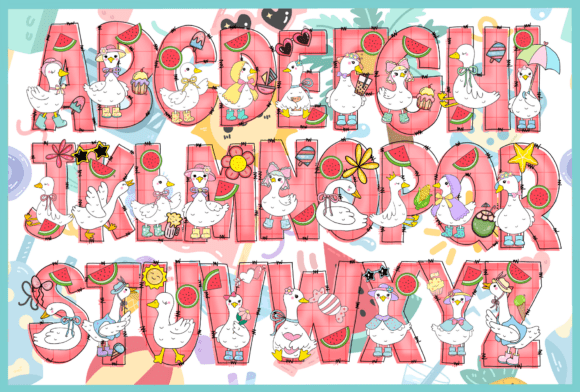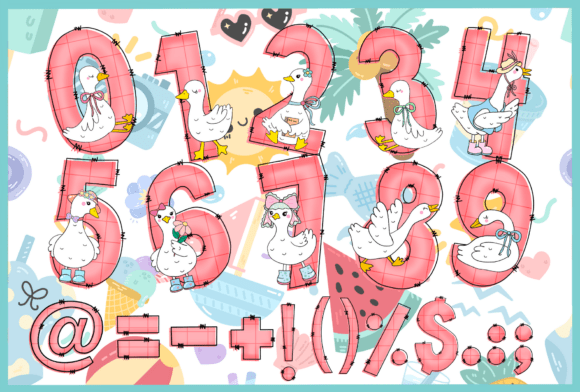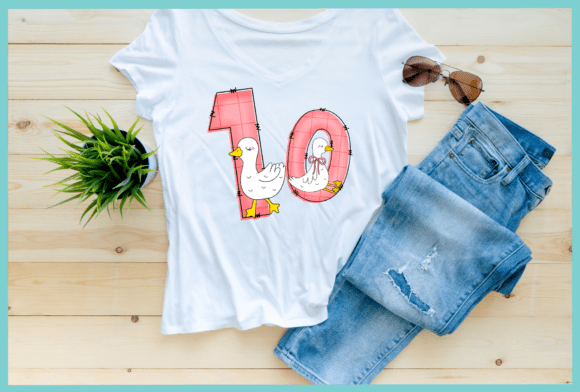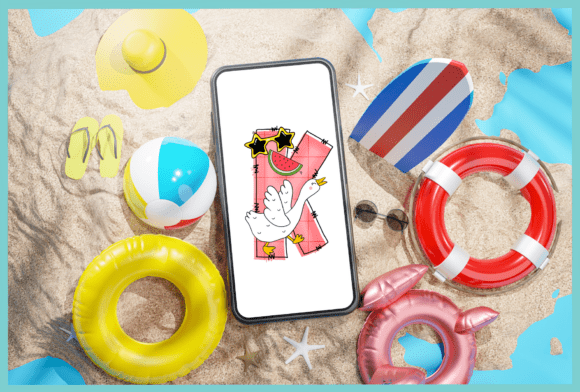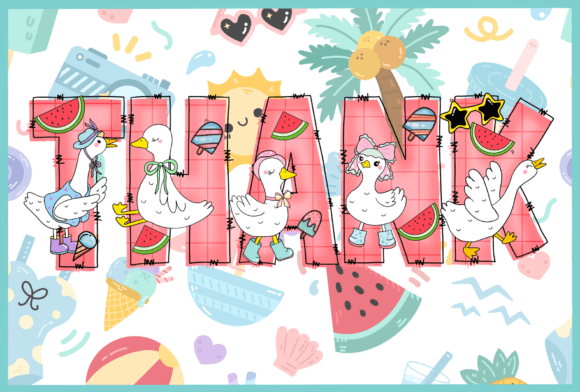
Introduction to Silly Goose Summer Font
Silly Goose Summer is a cute and colorful font.
It embodies playfulness and authenticity and is the perfect choice for any children activity or school project Add this chunky lettered font to your designs and notice how it makes them come alive.